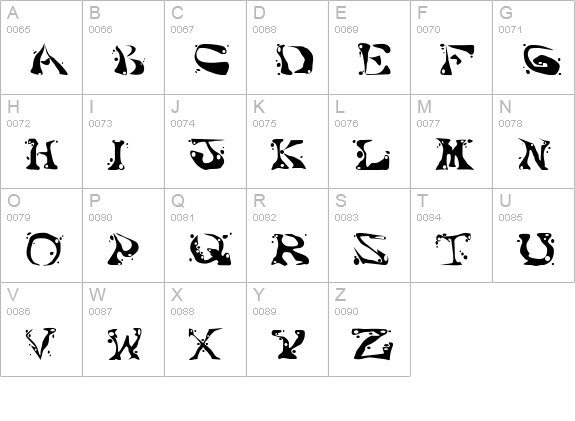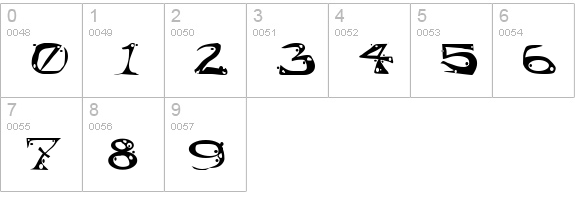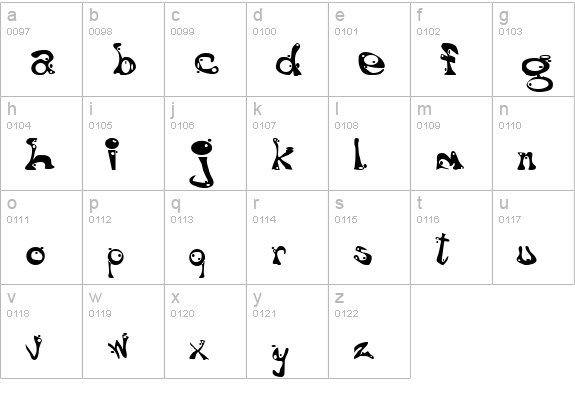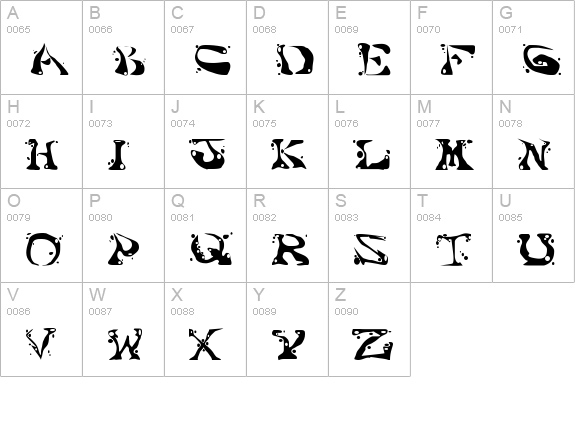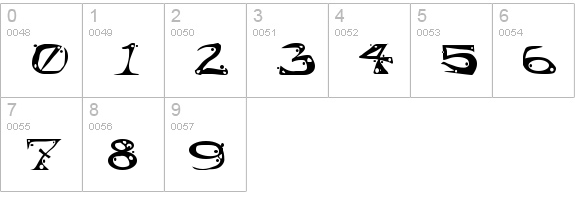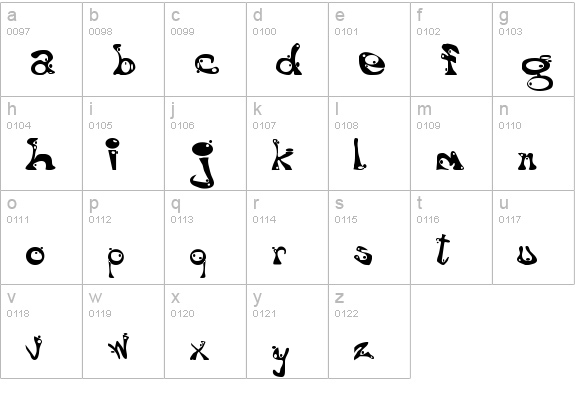
AajaxSurrealFreak Font Details
Introducing AajaxSurrealFreak font, a mesmerizing and captivating typeface that will transport your designs into a realm of surreal beauty. With its intricate swirls, delicate curves, and unique letterforms, AajaxSurrealFreak font enchants and captivates the eye, leaving a lasting impression on anyone who beholds its ethereal grace. This font is not only visually stunning but also versatile, making it perfect for a wide range of creative projects. Whether you're designing a logo, crafting a poster, or creating an eye-catching website, AajaxSurrealFreak font will effortlessly elevate your designs to new heights of sophistication and elegance. And the best part? AajaxSurrealFreak font is absolutely free! Yes, you read that right. This incredible font is freely available to download at FontsMarket.com, ensuring that anyone can access and use this enchanting typeface without any limitations. So, why wait? Let your imagination run wild and unleash the surreal magic of AajaxSurrealFreak font on your next design project. Download it today and witness the transformative power of free creativity at your fingertips.